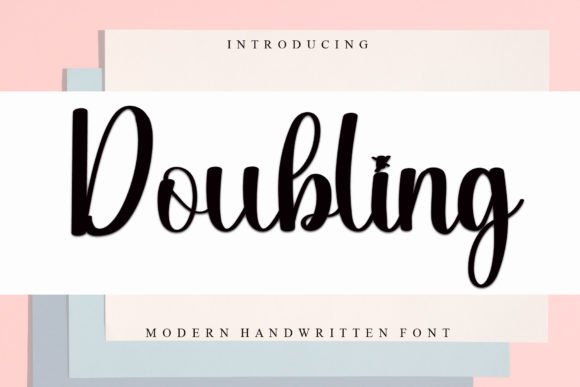
Introduce the World to Your New Visual Masterpiece: Doubling Font – The Epitome of Handcrafted Elegance
In a world saturated with monotonous typography, your designs deserve to stand out, to captivate, to leave an everlasting impression. Meet Doubling Font, the brainchild of PiPi Creative, a font so exquisite, it will transform your creative visions into breathtaking realities.
Doubling Font, a member of the esteemed script font family, exudes an air of elegance and sophistication that will elevate your designs to new heights. Its meticulously crafted curves and flourishes dance across the page, evoking a sense of timeless beauty and artistry. With Doubling Font as your creative companion, you'll discover a world of possibilities, where every project becomes a canvas for your imagination.
Immerse yourself in the world of Doubling Font and unlock a treasure trove of creative opportunities. Craft eye-catching logos that demand attention, design business cards that leave a lasting impression, or create social media posts that captivate your audience. Doubling Font's versatility knows no bounds, making it the perfect choice for a myriad of projects, from personal to professional.